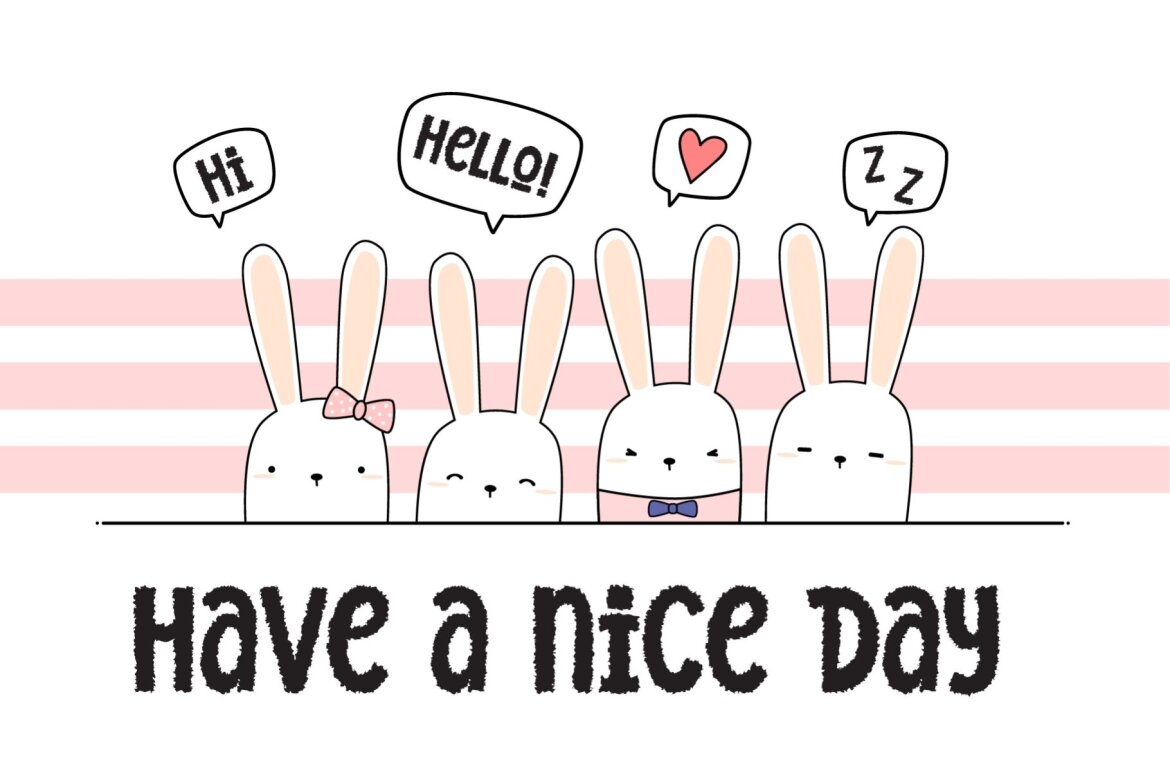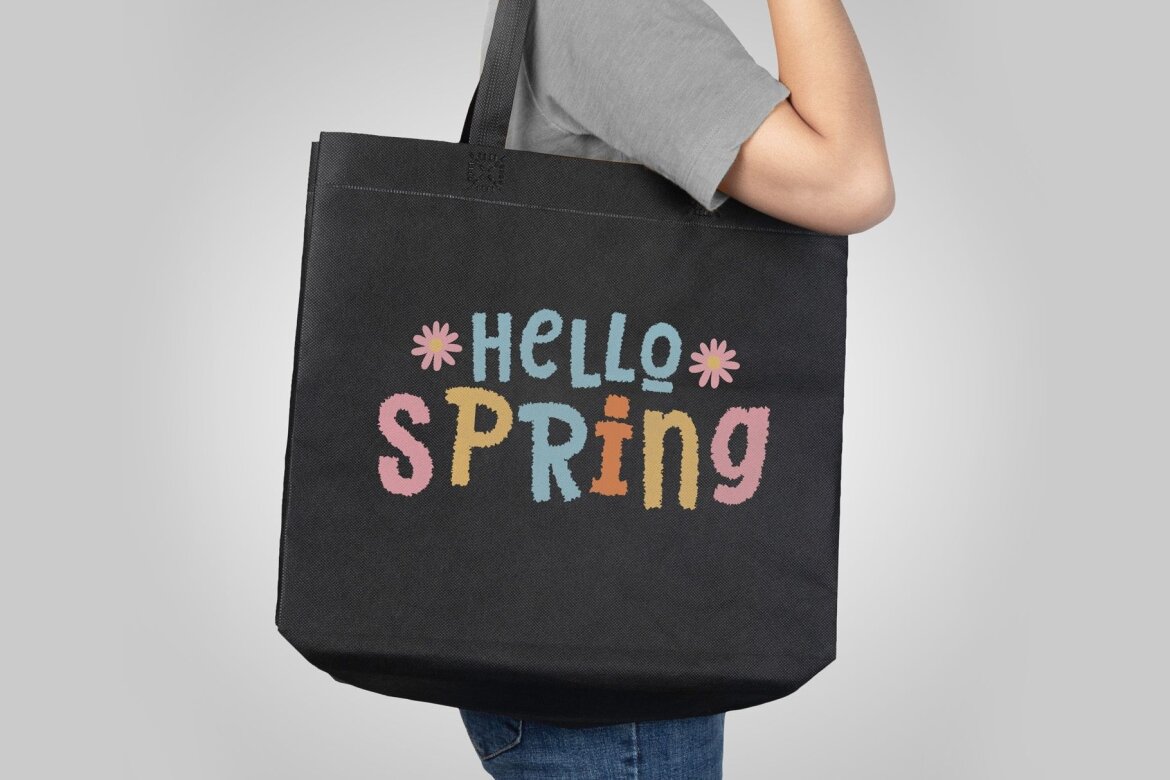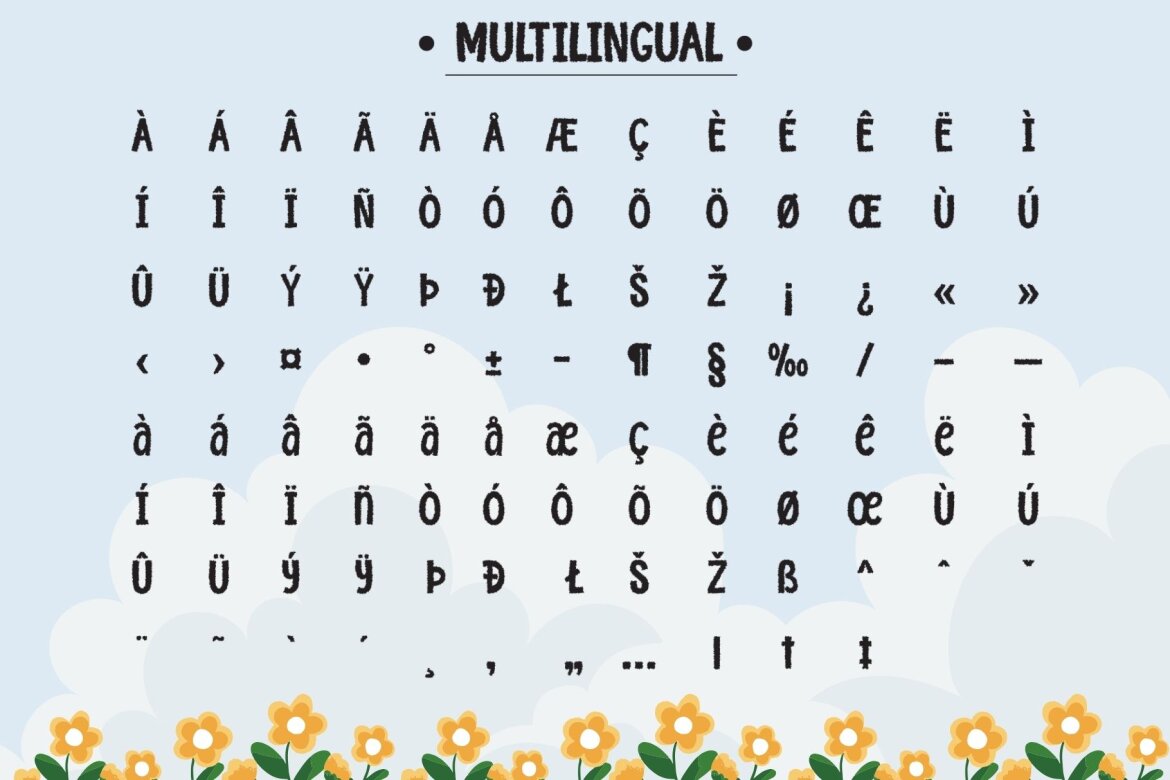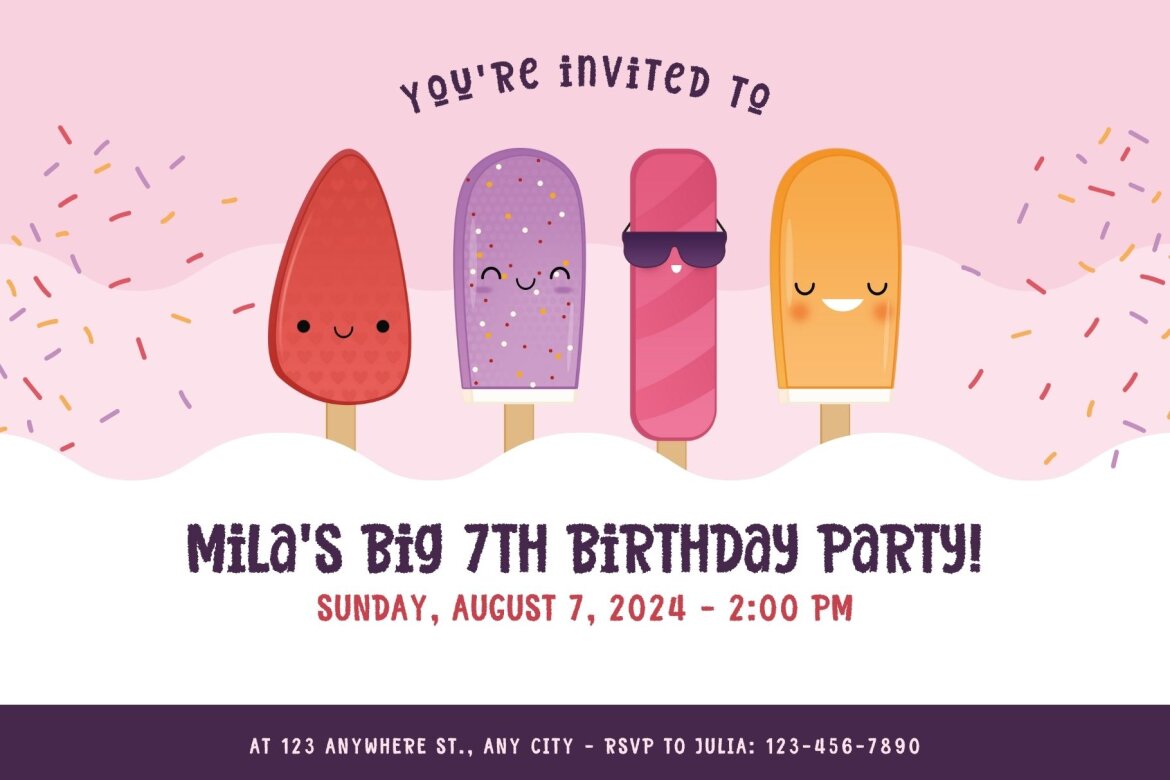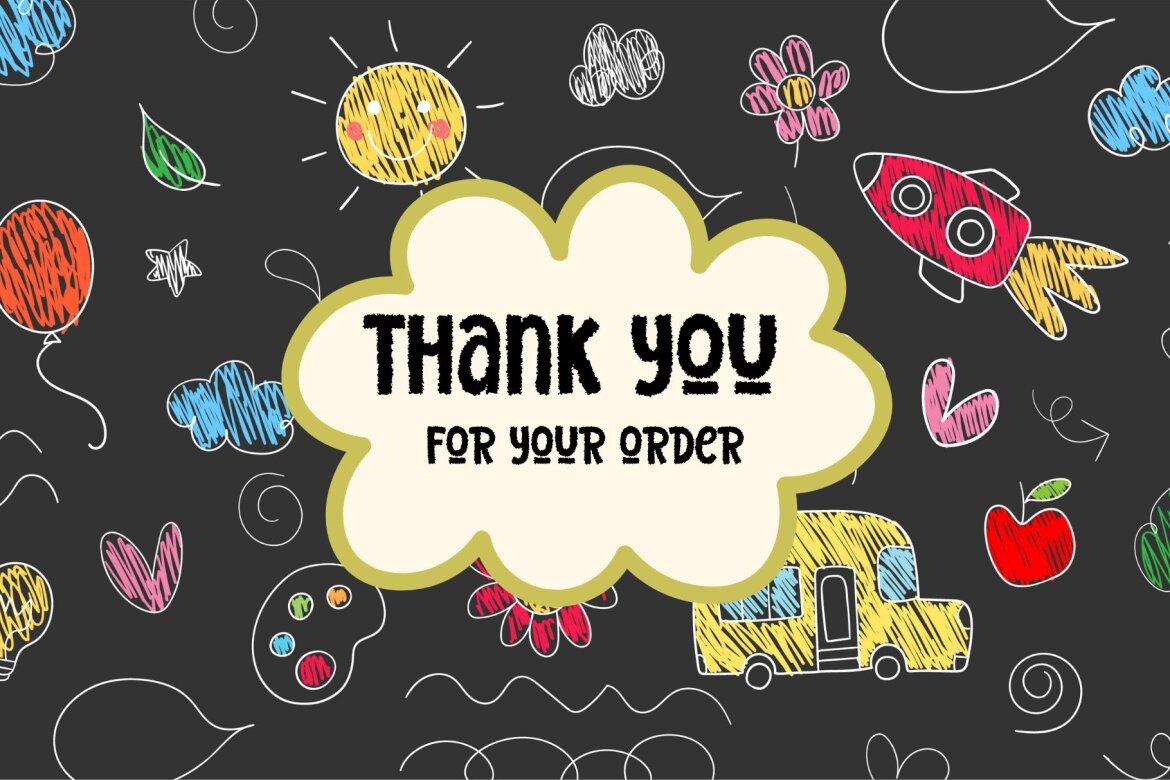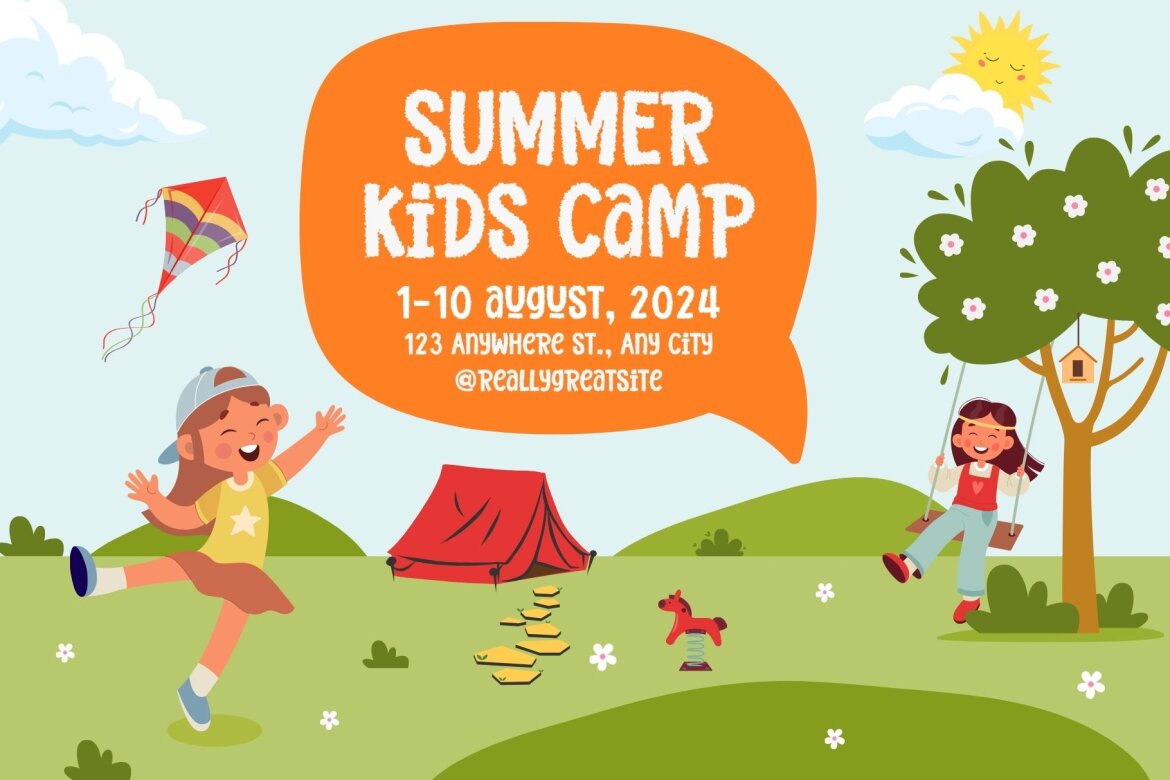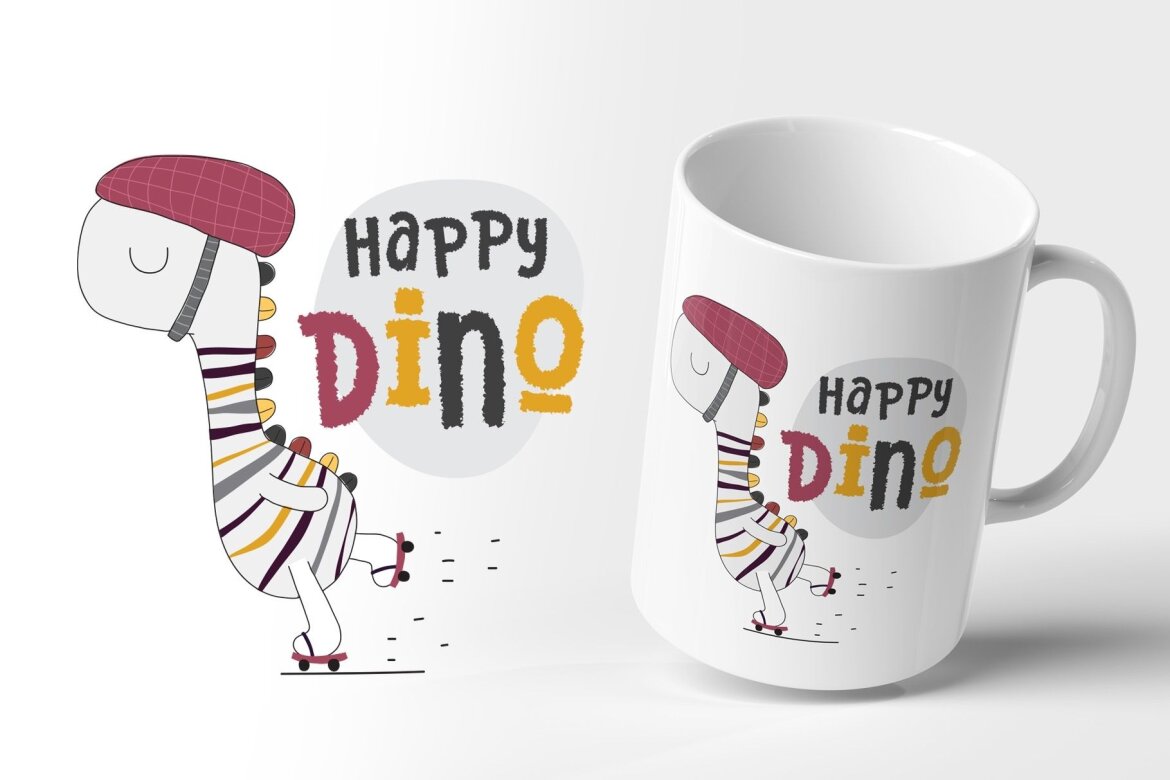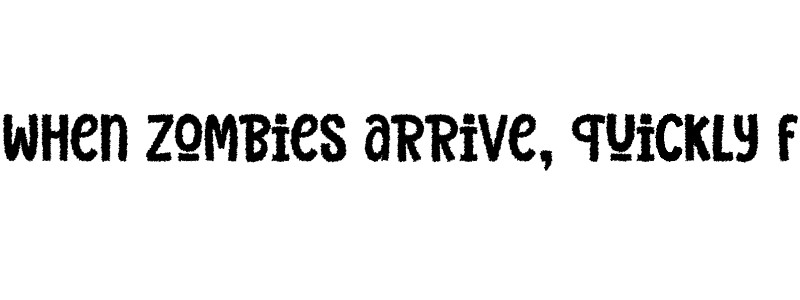
Fox Vibrate FREE Font
Fox Vibrate is a cute and fun Display Font suited for kids, playgrounds, or school themes. Whether you’re using it for crafting, playful restaurant menus, digital designing, presentations, or greeting card making, it’s perfect!